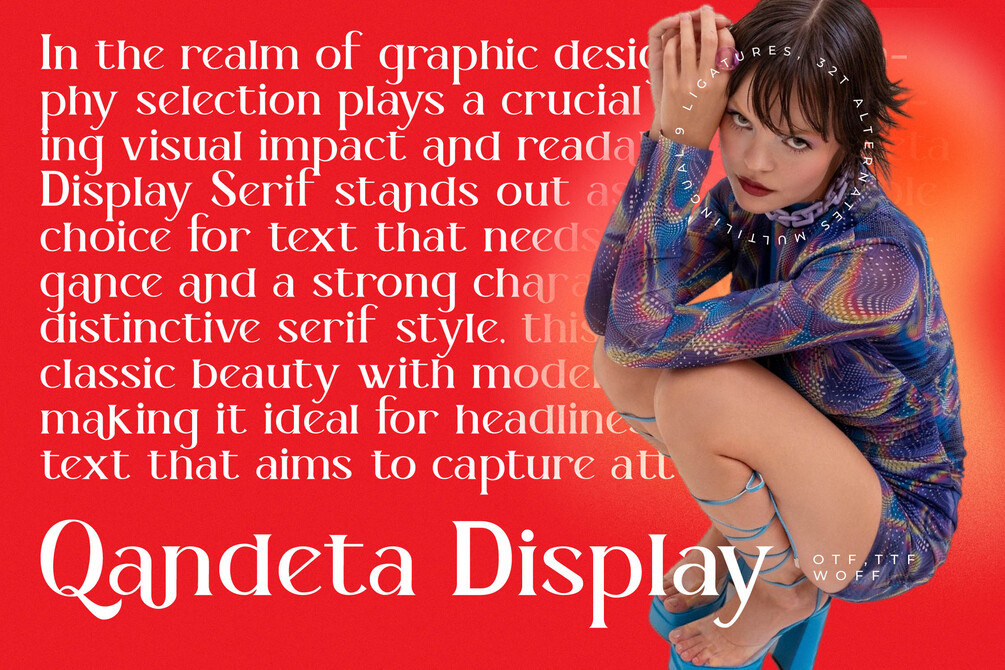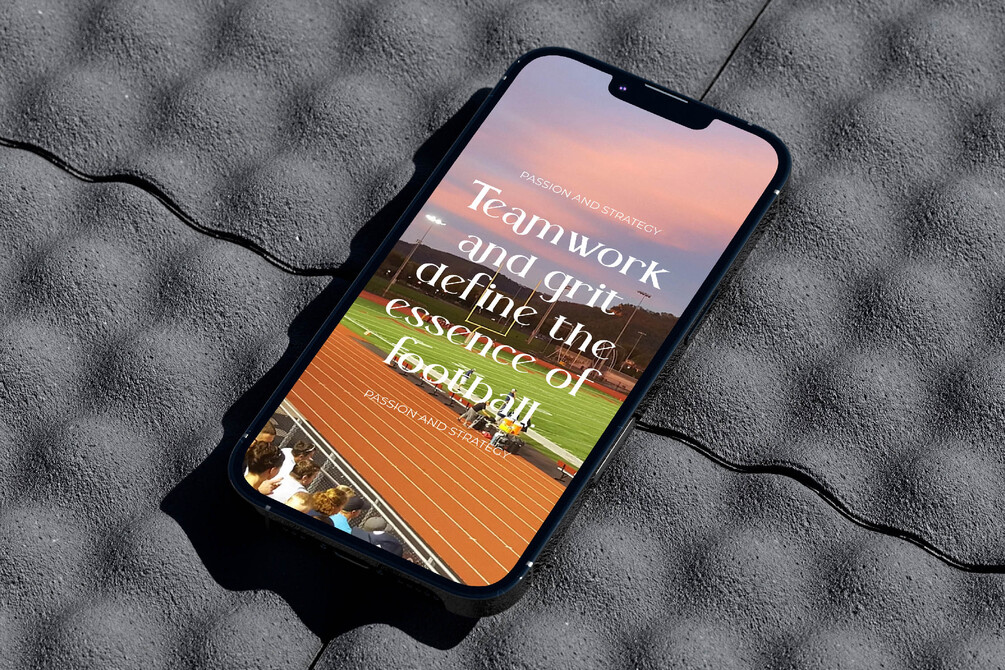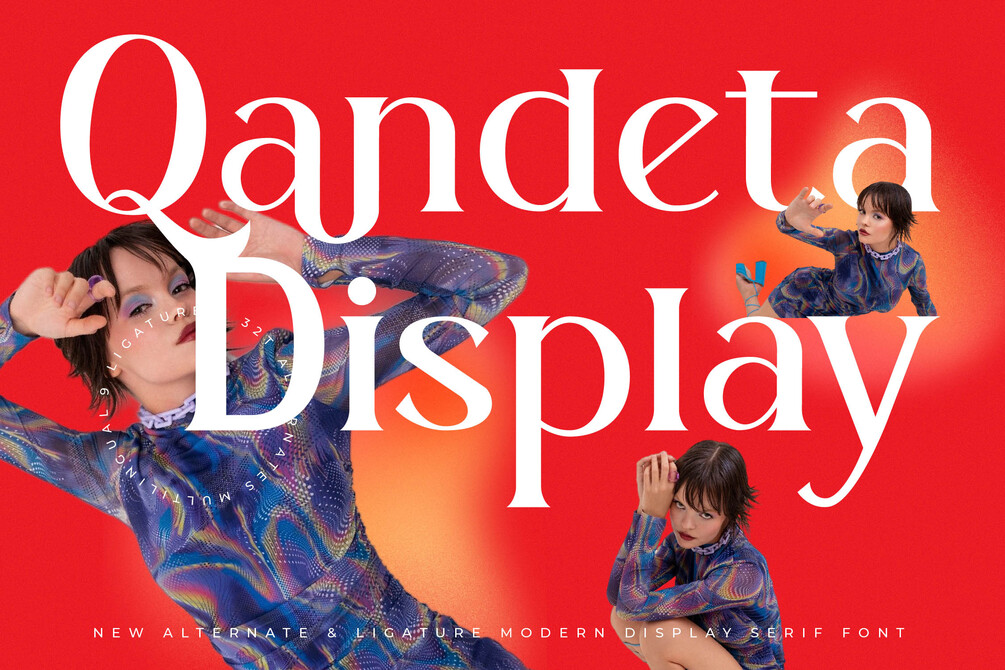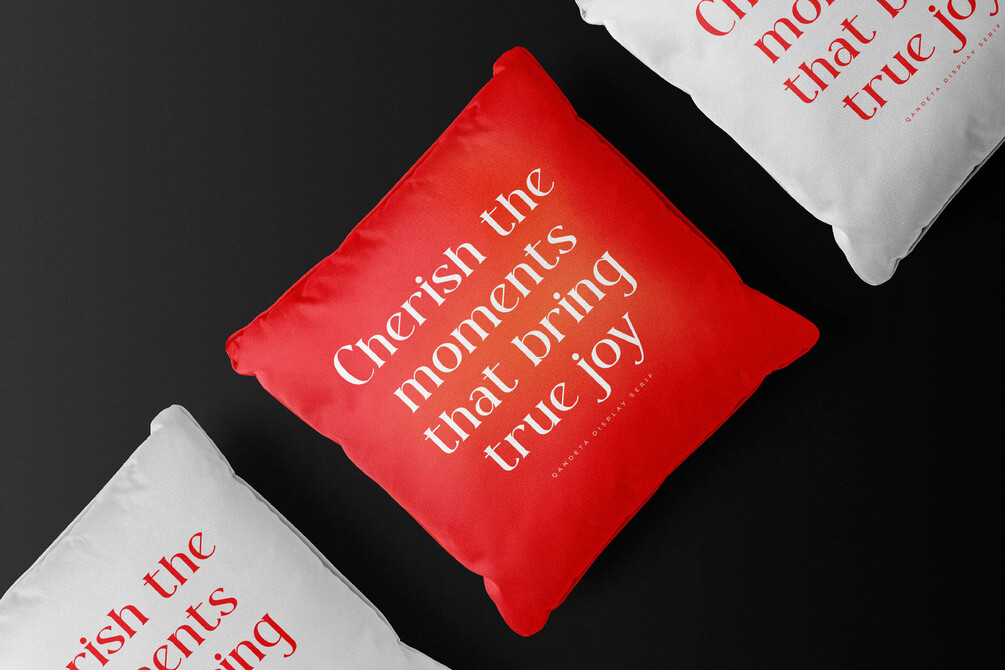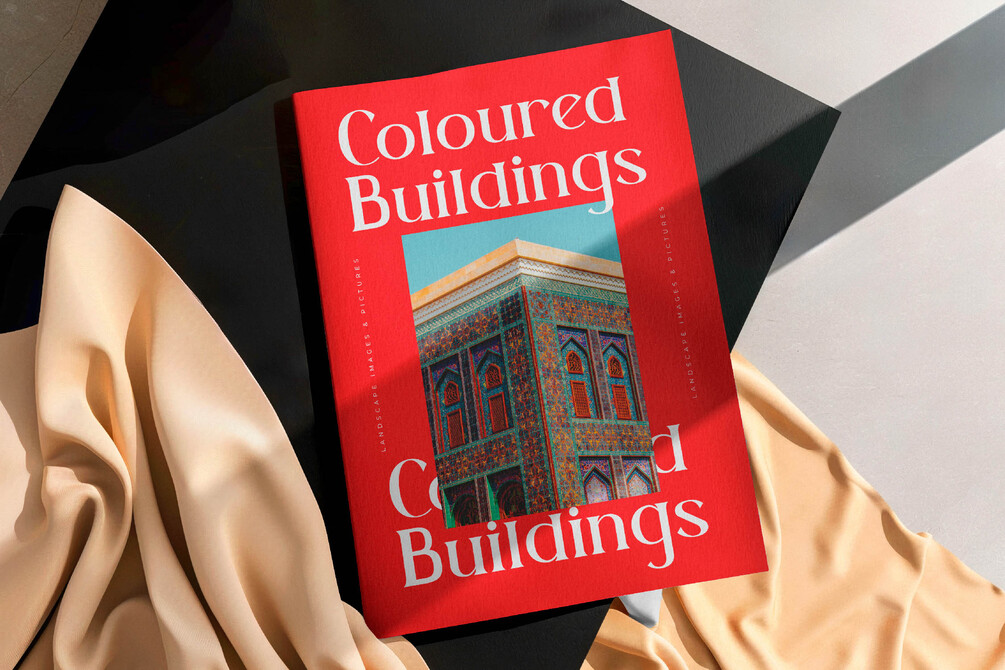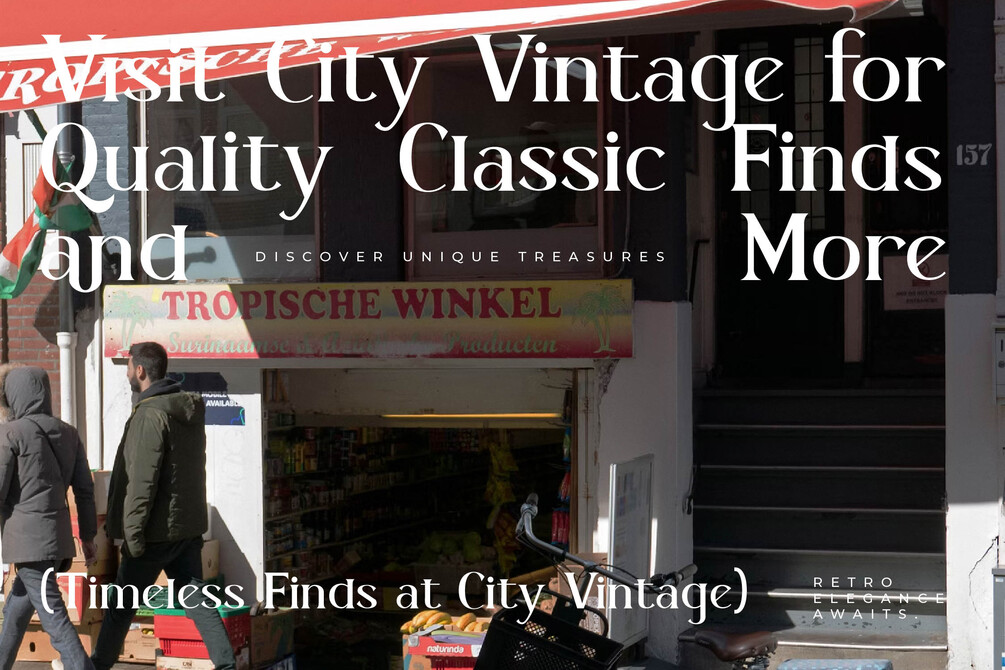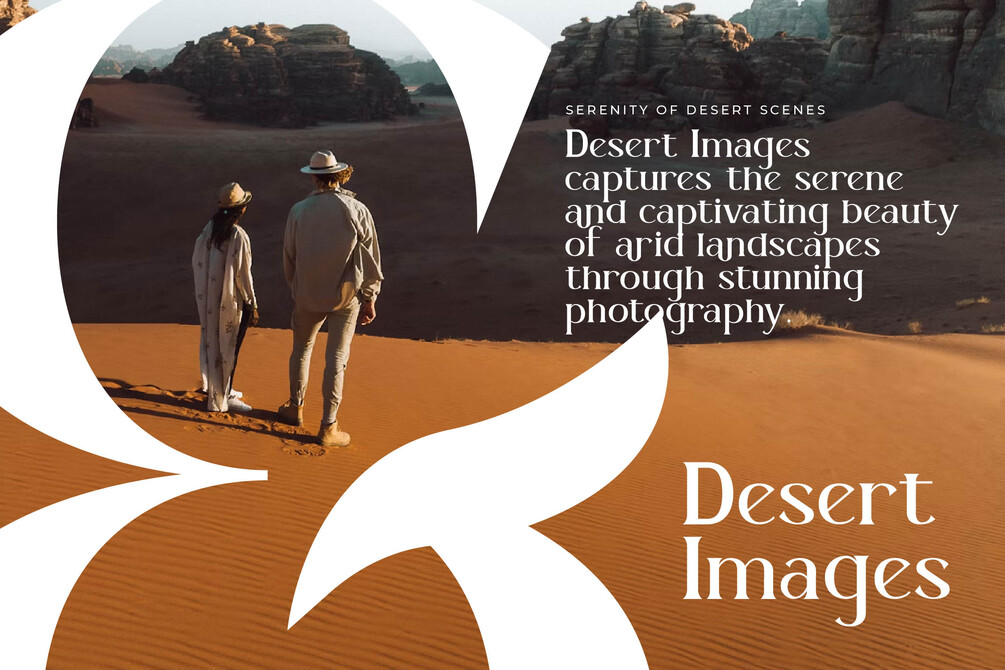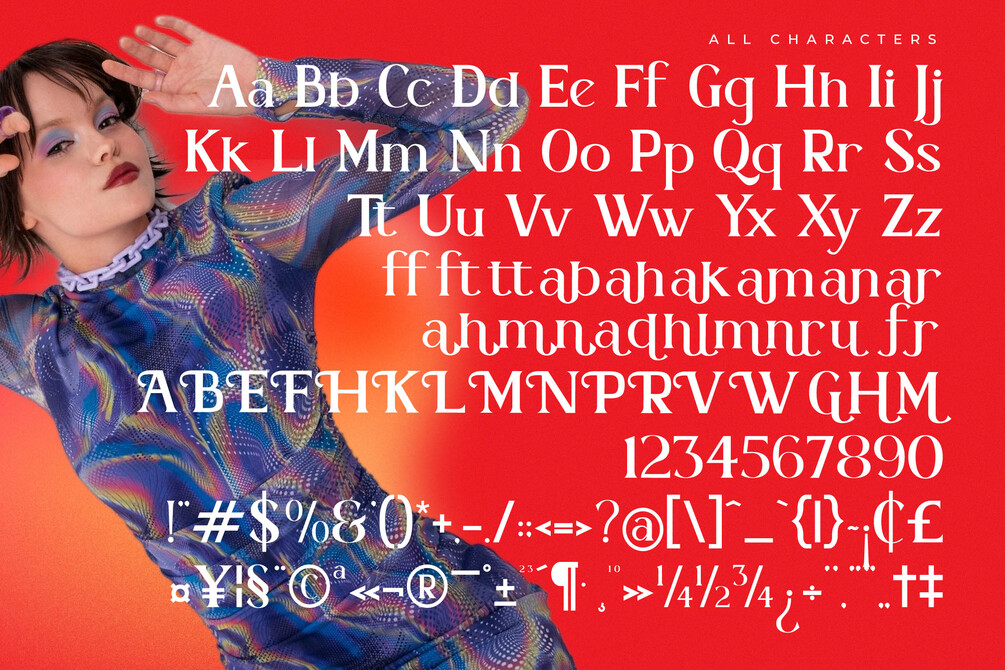
Qandeta Display Serif
Qandetta Display Serif: A Sophisticated Typeface
Qandetta Display Serif is a sophisticated typeface that harmoniously merges contemporary design with classic elegance. With its carefully crafted letterforms and refined serifs, Qandetta Display Serif provides a distinctive and luxurious appearance, perfect for making a statement in high-profile branding, premium editorial work, and stylish invitations.
This typeface captures a balance of modern innovation and timeless grace, ensuring that your designs stand out with a touch of refined sophistication. Elevate your projects with Qandetta Display Serif, where modern creativity meets enduring charm.
• Ligatures, Alternates & Swashes